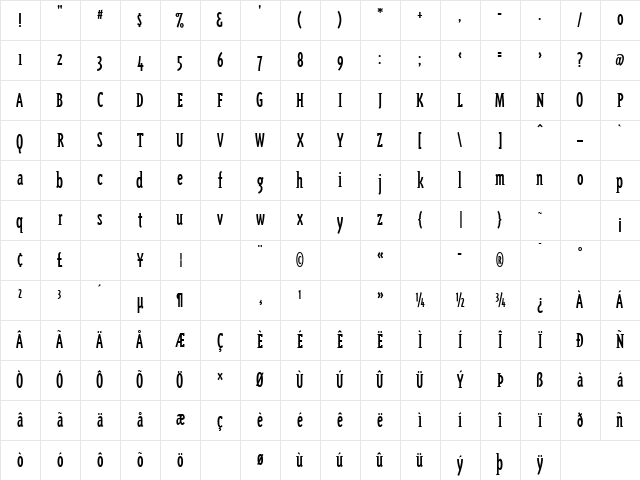
TriplexConSerOldstyle Regular
Design Context for TriplexConSerOldstyle
TriplexConSerOldstyle carries the refined structure of traditional serif typography, with bracketed terminals and considered proportions that communicate credibility and craft.